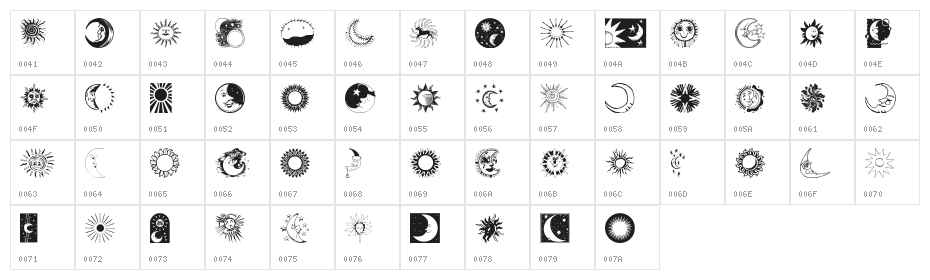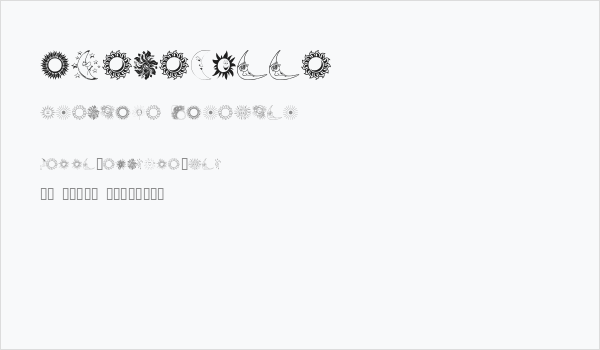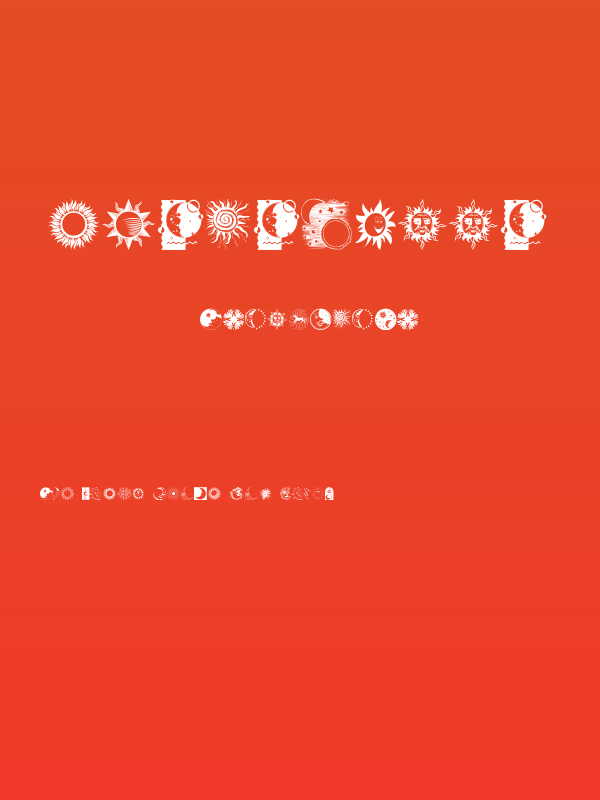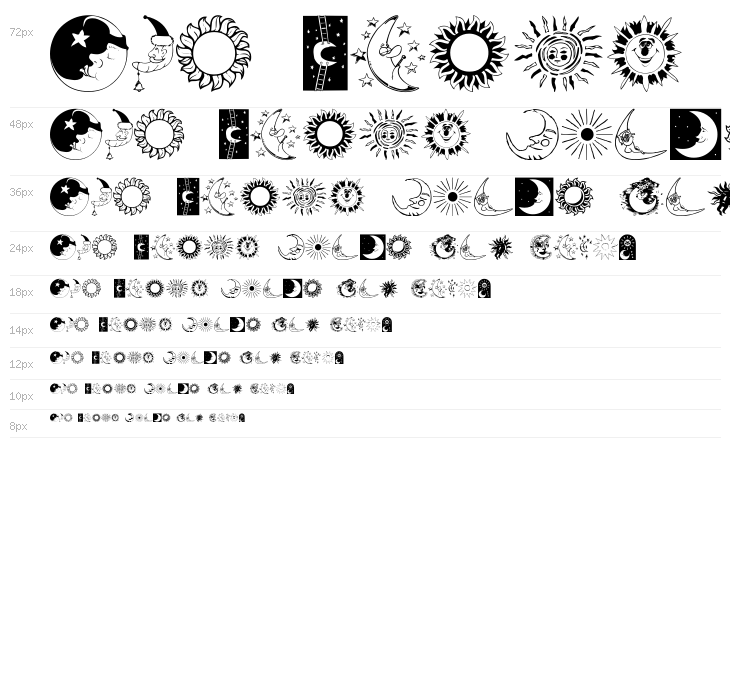
SunandMoon Font
| Stile generale | Decorative, Mystical, Celestial |
| Caso d'uso | Icons, Decorative elements, Logos, Themed graphics |
| Progetti proposti | Astrology posters, mystical branding, tarot cards, decorative borders, event invitations, scrapbooking, and social media graphics. |